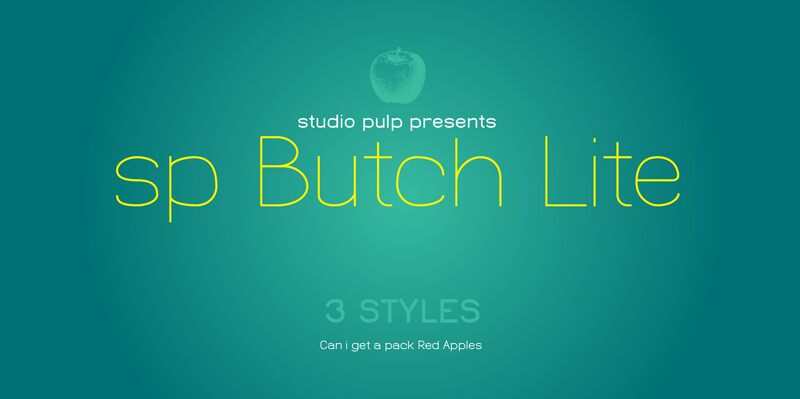
SP Butch Lite Light
SP Butch Lite Light font by Studio Pulp is a free light geometric sans font. Part of the SP Butch Lite family, it solves the tricky brief of “ultra-thin yet readable” with steady monoline strokes, clean circular bowls, and roomy counters that keep letters crisp at headline sizes. The rhythm feels airy and deliberate—think glass-smooth curves meeting neat, squared moments—so layouts breathe without looking flimsy.
Using SP Butch Lite Light, titles land with a modern, weightless poise that shines on fashion branding, lookbooks, editorial covers, minimalist posters, tech landing pages, and cosmetics packaging. This free font’s generous spacing and calm geometry create a quiet authority, perfect when you want sleek rather than shouty. Pair it with a sober grotesk for body copy, and give it large sizes with a touch of extra tracking for maximum elegance.